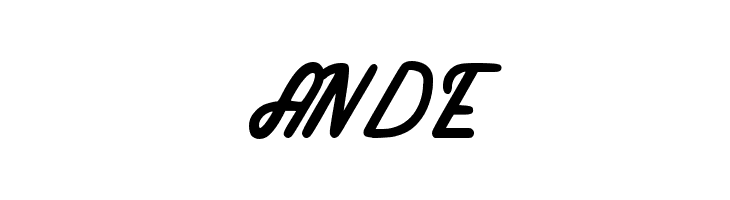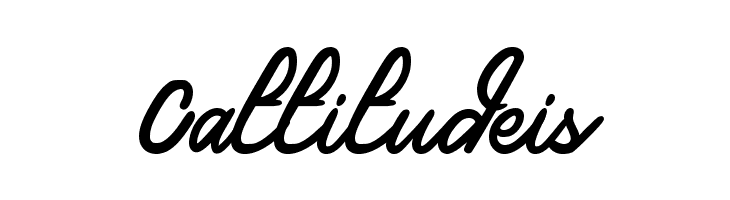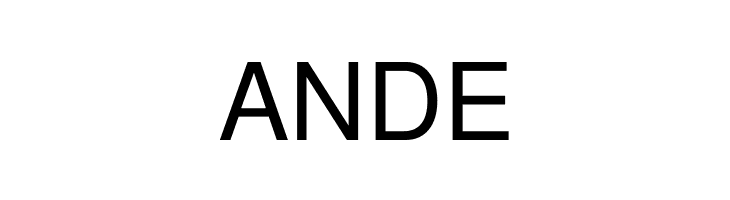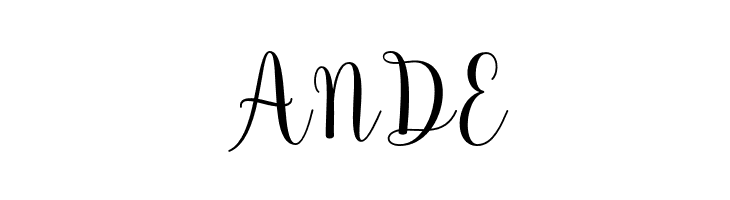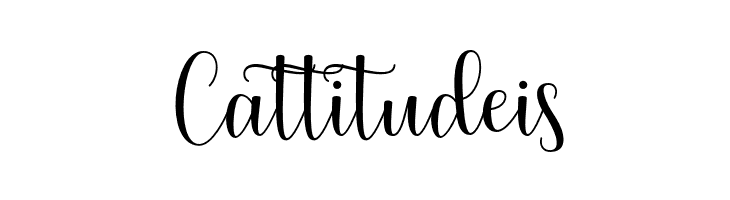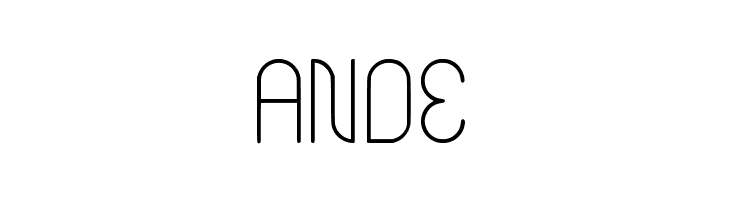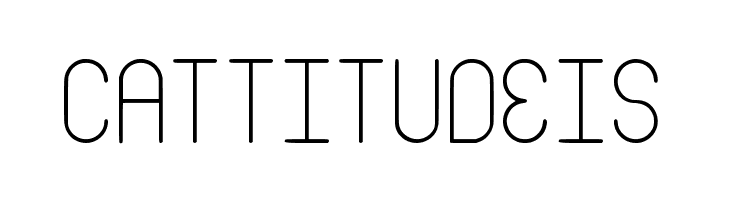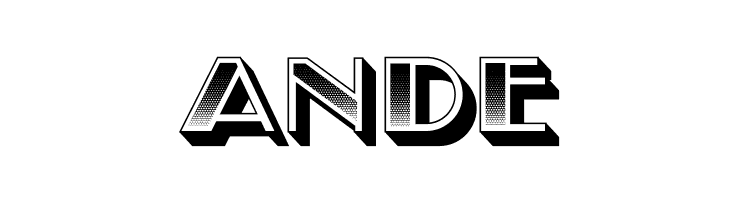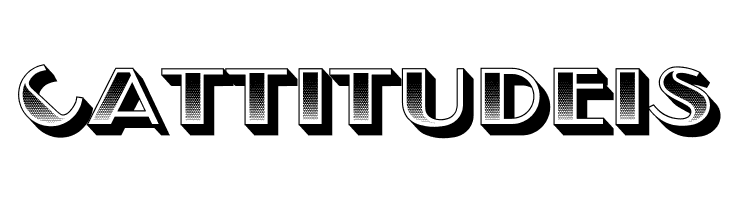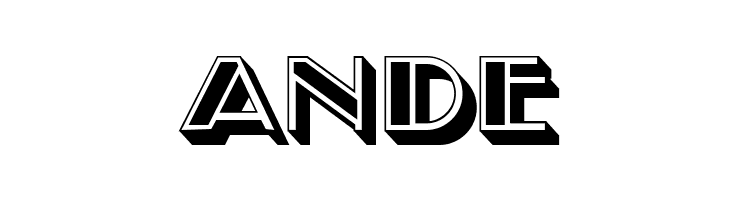
A bold, playful script font with a whimsical, hand-drawn style.
A bold, flowing script font with elegant curves and a dynamic style.
A modern, geometric font with thin, uniform lines and rounded edges.
A bold, modern font with clean, geometric lines and strong visual impact.
A modern, geometric sans-serif font with a clean and minimalistic design.
A modern sans-serif font with smooth curves and balanced proportions.
A modern set of clean, bold pictograms ideal for digital and print use.
A modern sans-serif font with a clean, balanced design and smooth curves.
A modern, italic sans-serif font with smooth curves and consistent stroke width.
A bold, flowing script font with a natural handwriting style.
A delicate and flowing script font with elegant, cursive letterforms.
An elegant, flowing script font with a handwritten appearance.
An elegant script font with flowing, cursive letters and intricate swashes.
A lively, handwritten font with elegant, sweeping strokes and medium contrast.
A lively and expressive handwritten font with fluid strokes.
A dynamic and flowing script font with elegant cursive letterforms.
A bold, angular font with a futuristic and geometric style.
A clean, modern sans-serif font with uniform stroke width and excellent legibility.
A modern, geometric font with fluid, continuous lines and a futuristic aesthetic.
A graceful and elegant script font with flowing, cursive design.
A decorative cursive font with elegant loops and artistic flair.
An elegant, cursive script font with flowing, connected letters.
A graceful, cursive font with a fluid, handwritten style.
A bold, decorative font with a gradient effect and three-dimensional style.
A bold, geometric font with a 3D shadow effect, perfect for impactful designs.
A decorative font inspired by Arabic calligraphy with bold strokes and intricate details.
A decorative font with intricate curves and a calligraphic style.
A calligraphic font with Middle Eastern influences, featuring bold, angular strokes and smooth curves.
A bold, decorative font with an exotic, playful style and flowing curves.
An elegant, flowing script font with calligraphic style and dynamic strokes.
An artistic, calligraphic font with decorative elements and bold strokes.
An Arabic-inspired font with flowing, calligraphic strokes.
An elegant Arabic-style font with flowing, traditional calligraphic elements.
An elegant, culturally inspired font with flowing curves and intricate serifs.